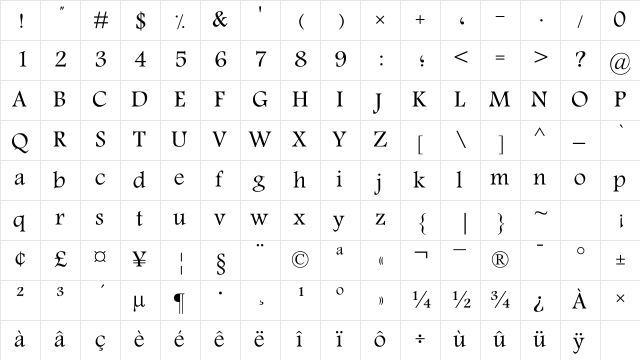
Zar Normal
Design Context for Zar Typeface
Zar is a composed and adaptable typeface that performs quietly and consistently across a wide range of design contexts.